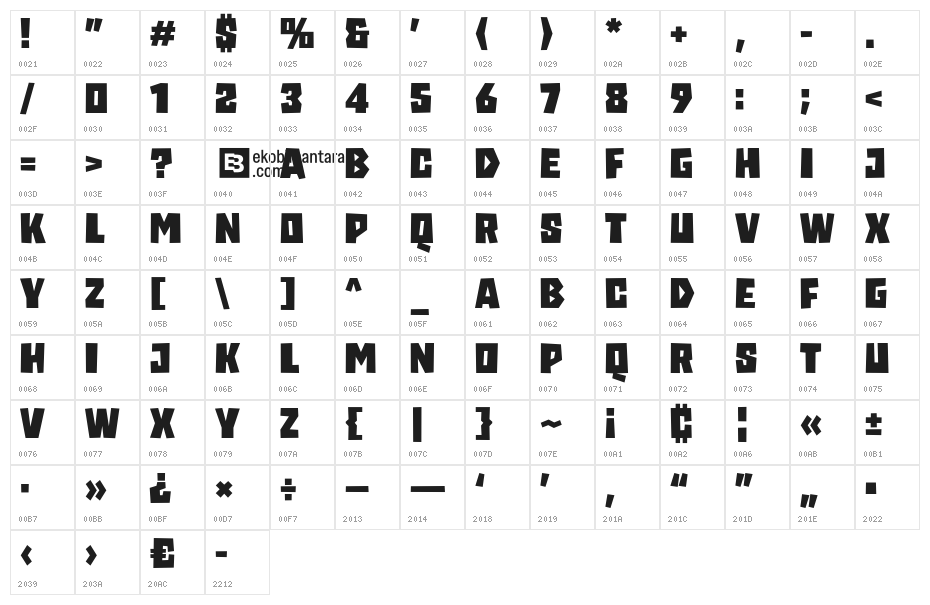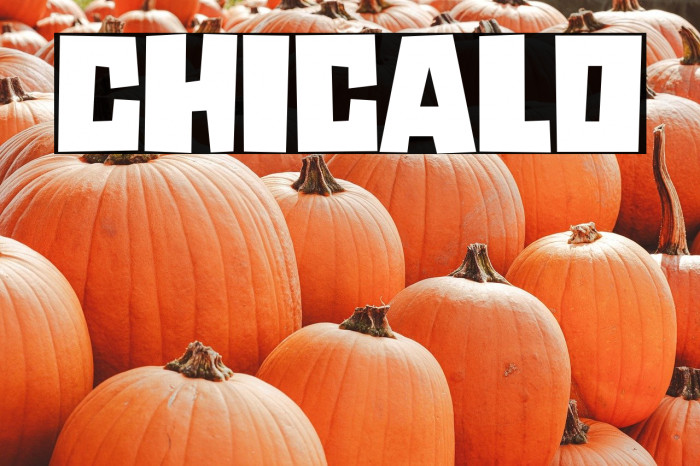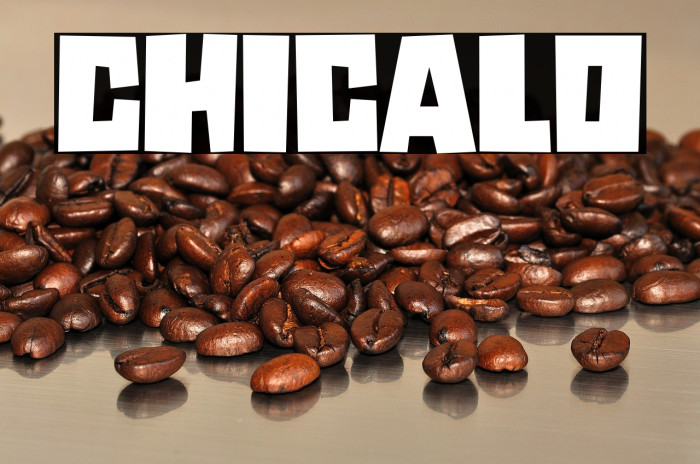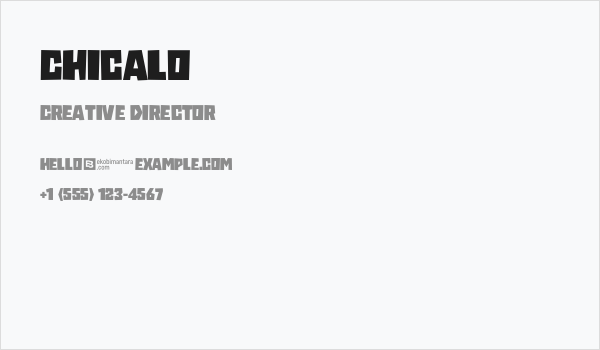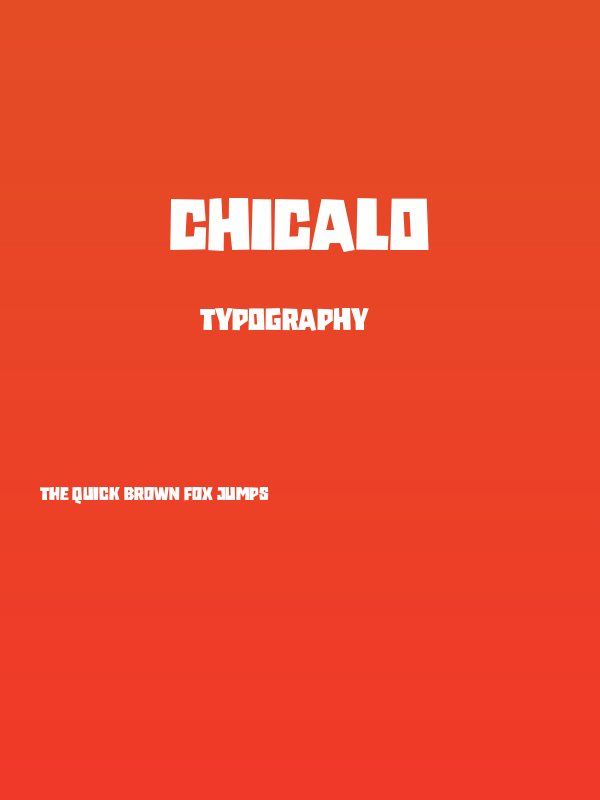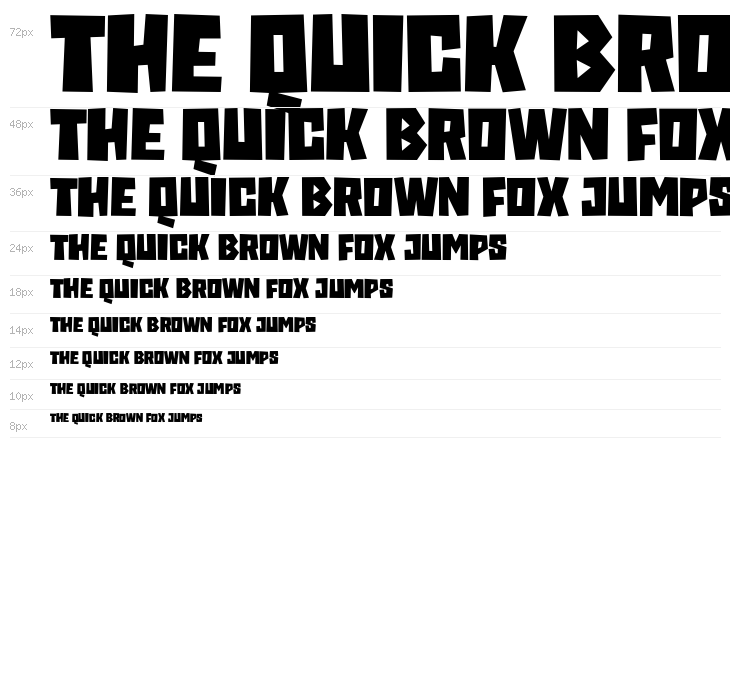
Chicalo Font
Chicalo Description
This font features a bold, blocky style with a playful and slightly irregular form. The characters are heavily stylized, with exaggerated angles and a chunky appearance that gives it a distinctive, eye-catching look. The uppercase and lowercase letters maintain a consistent weight, contributing to a cohesive design. Numbers and special characters follow the same bold and dynamic style, making them stand out effectively. The overall design is reminiscent of graffiti or street art, with a modern twist that makes it suitable for contemporary projects.
| Overall Style | Modern, Urban |
| Proposed Projects | Ideal for posters, album covers, streetwear branding, and any project requiring a bold, urban aesthetic. |